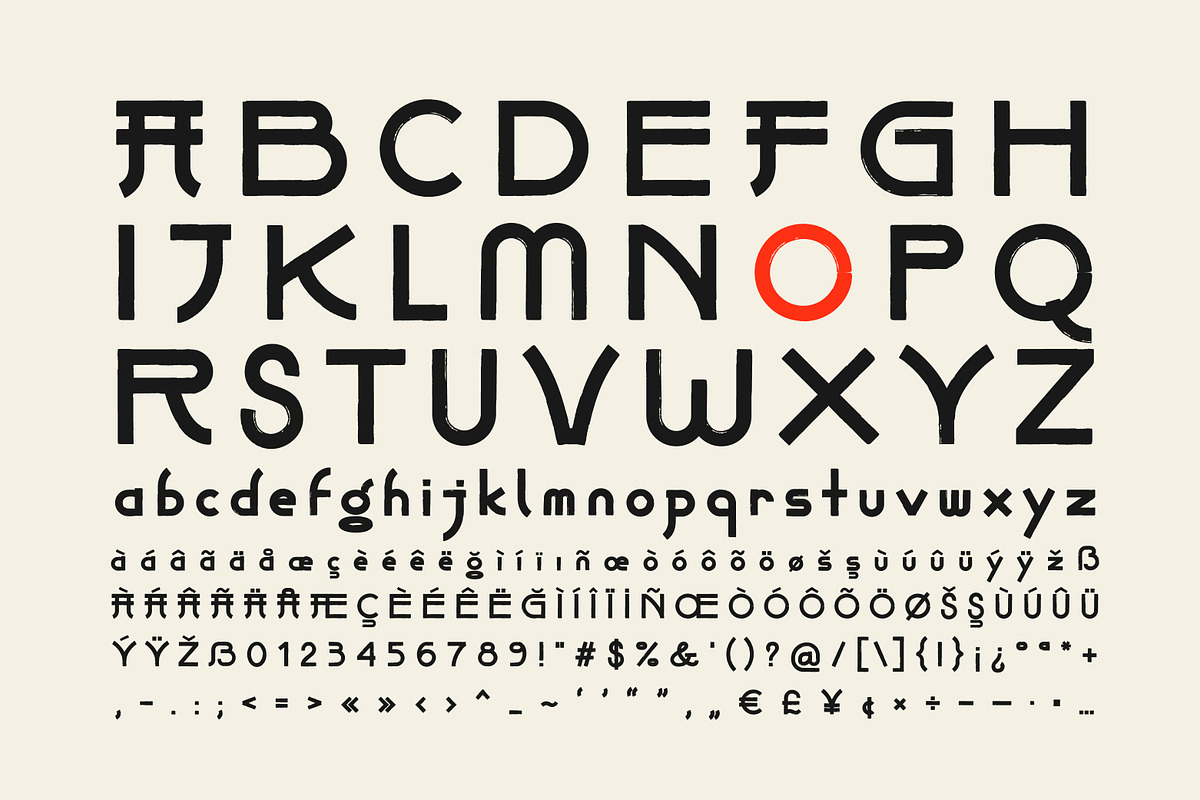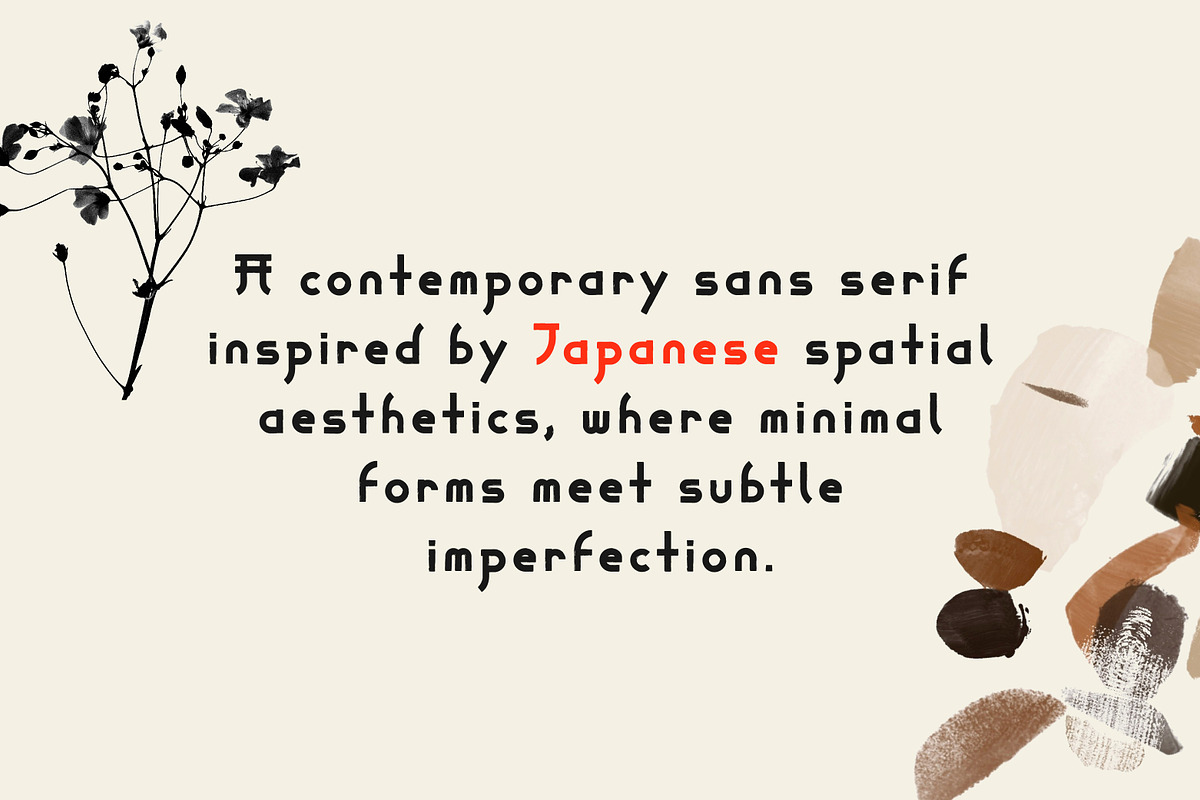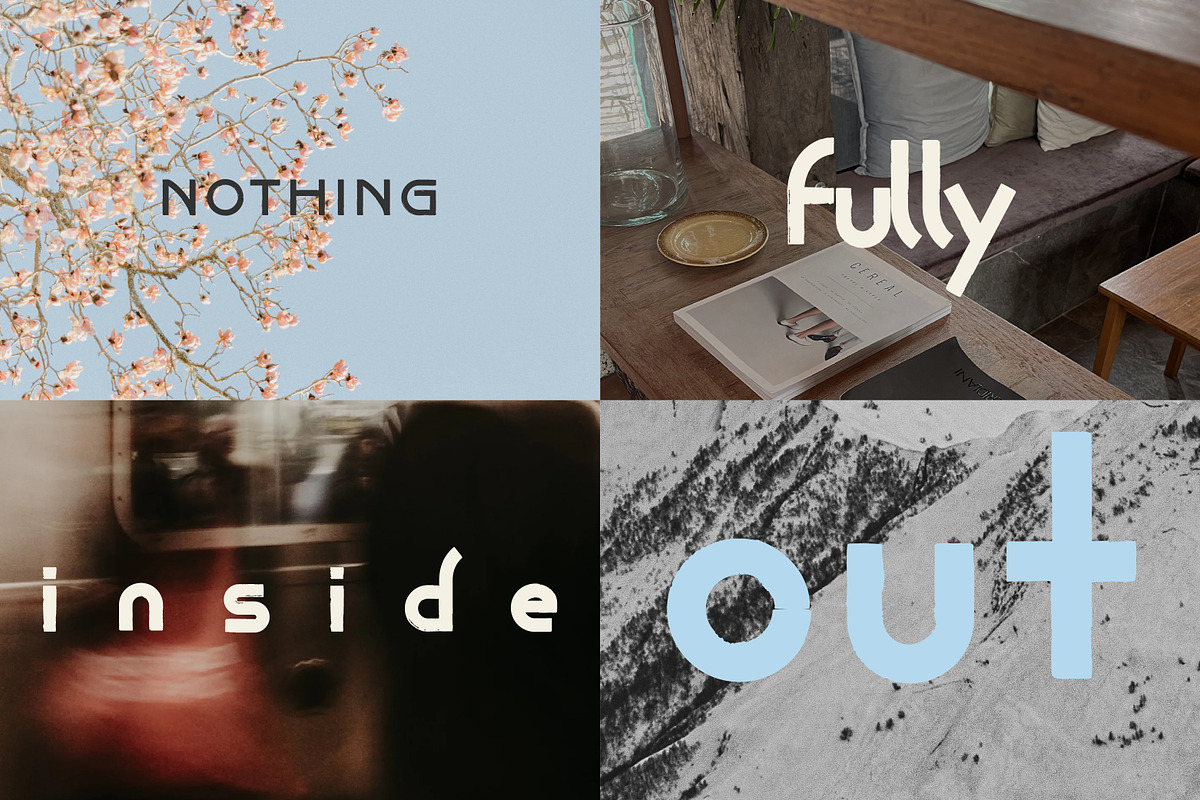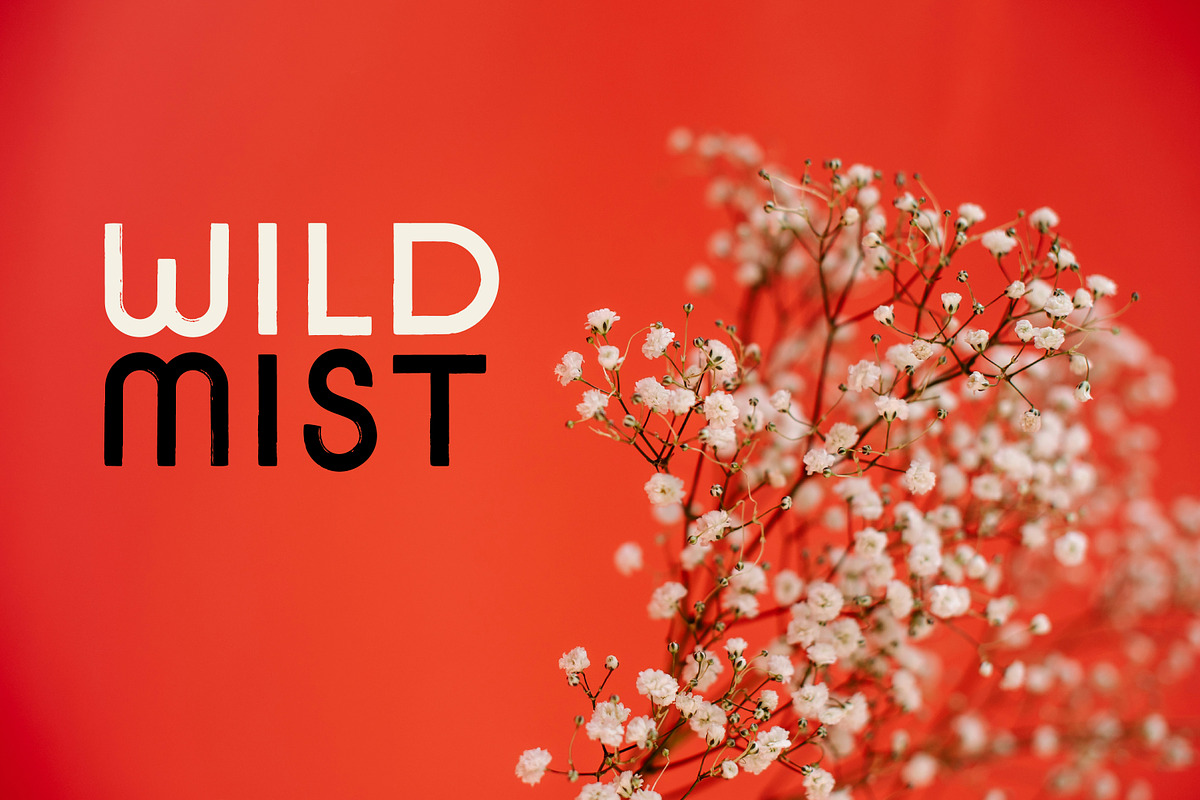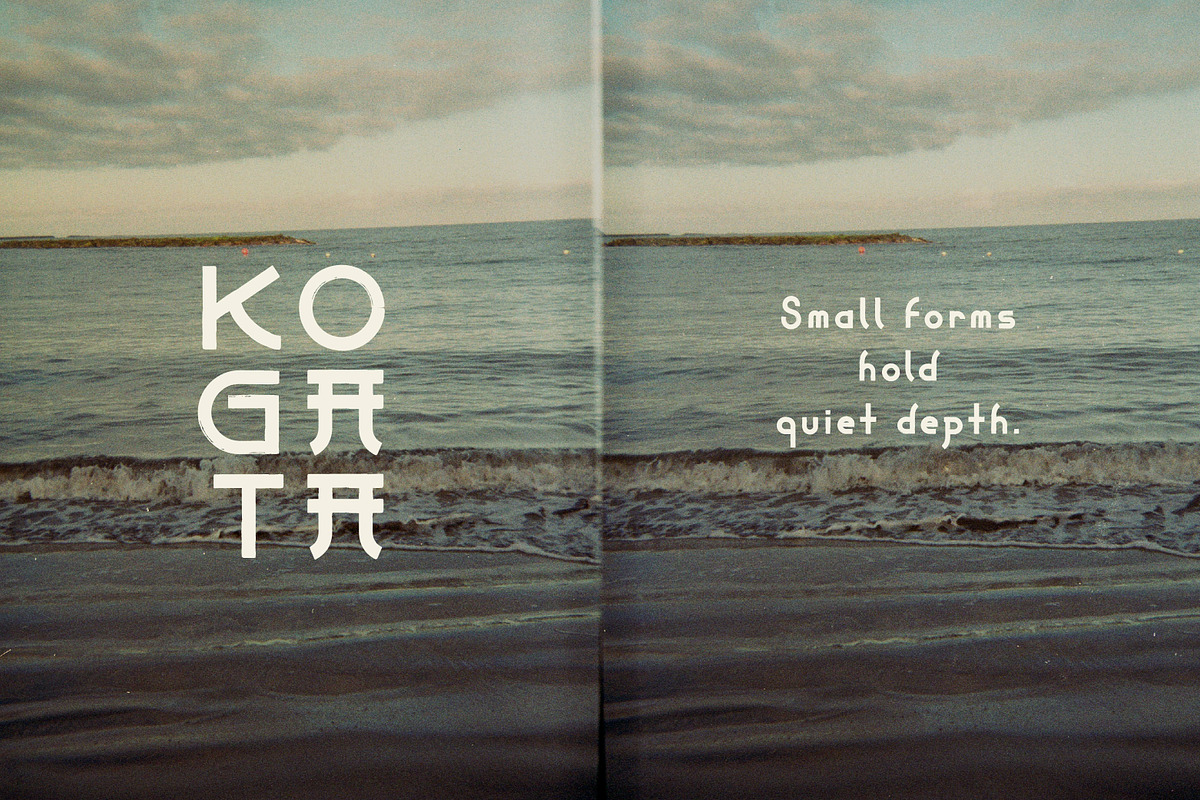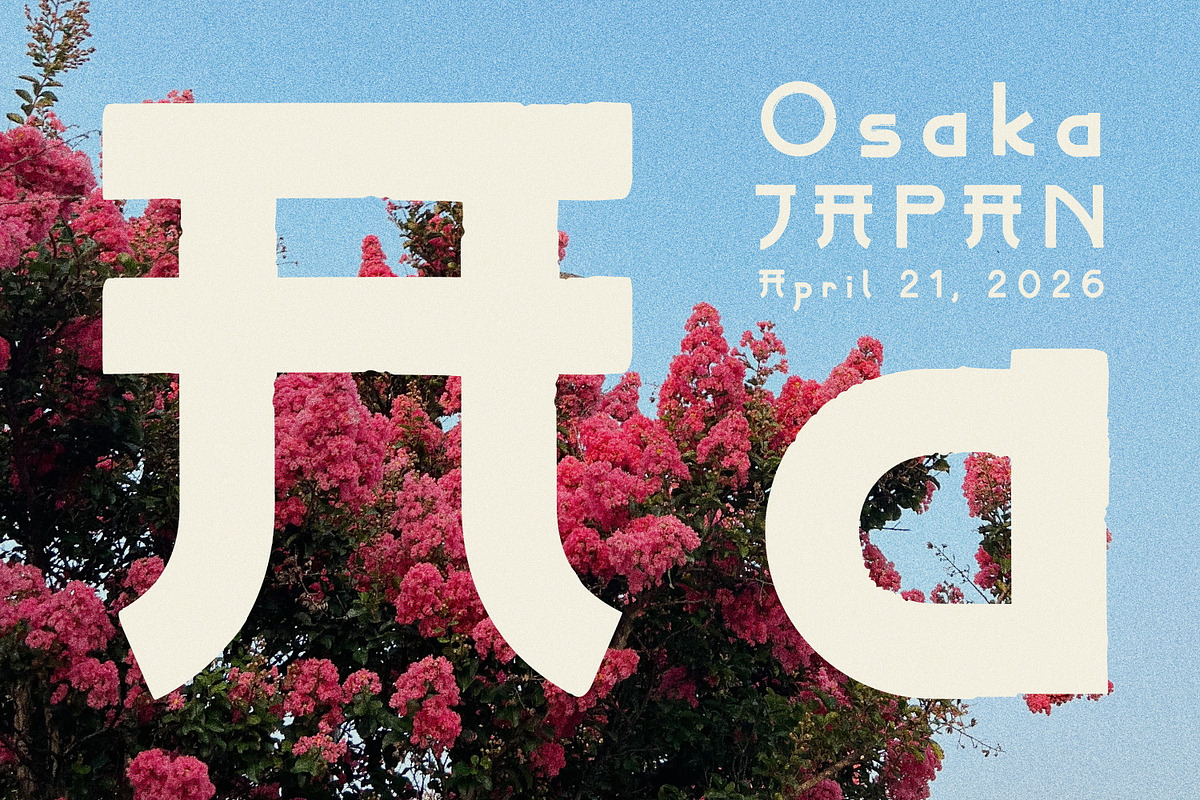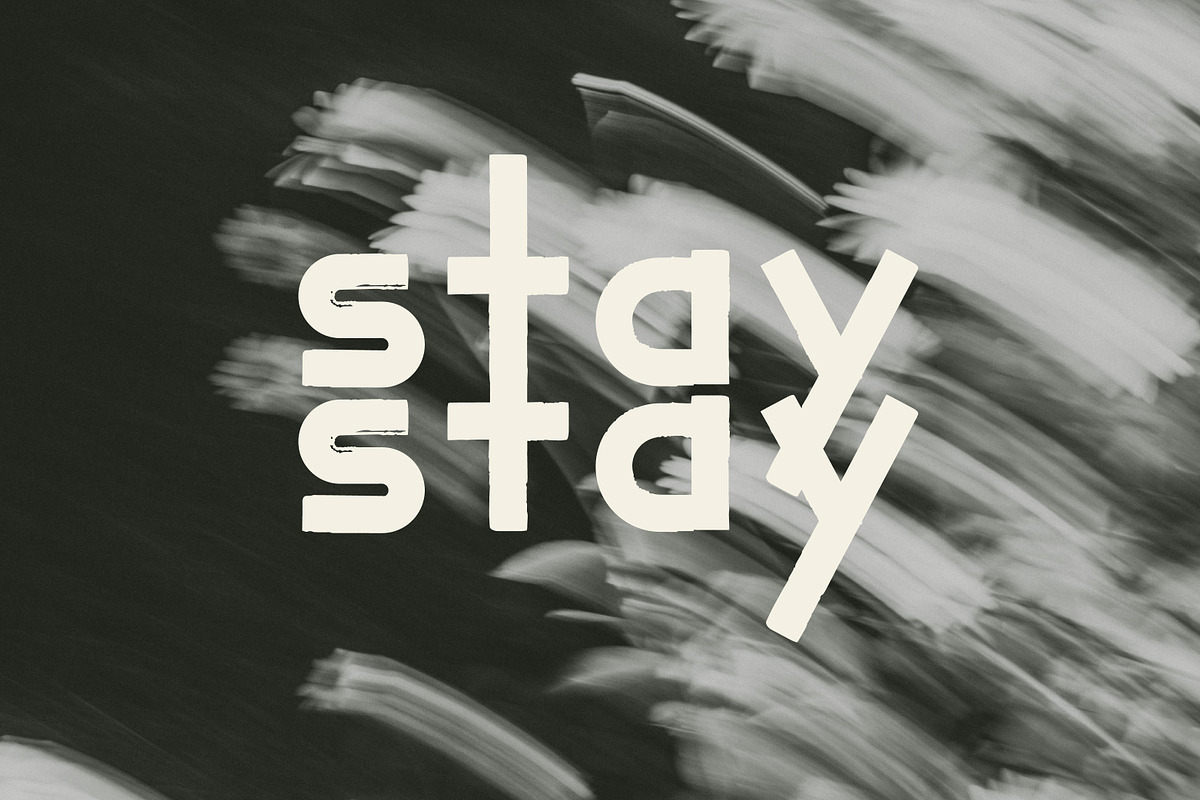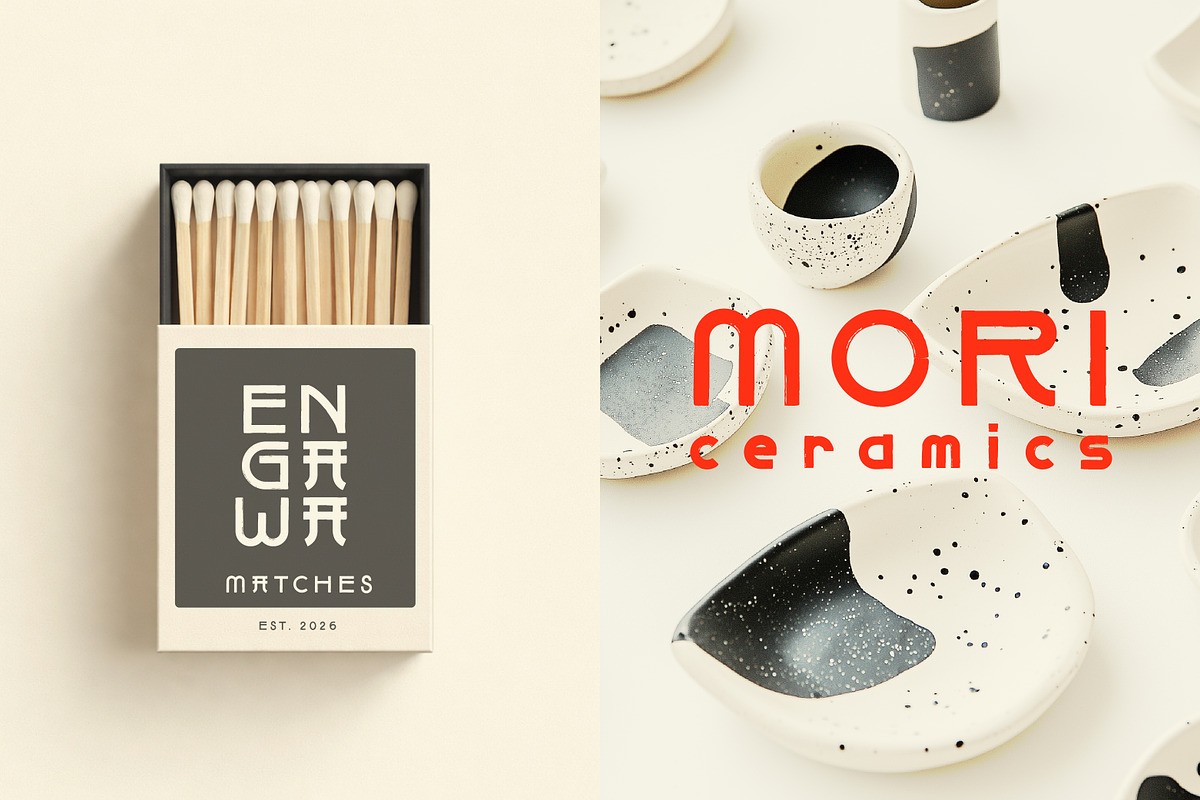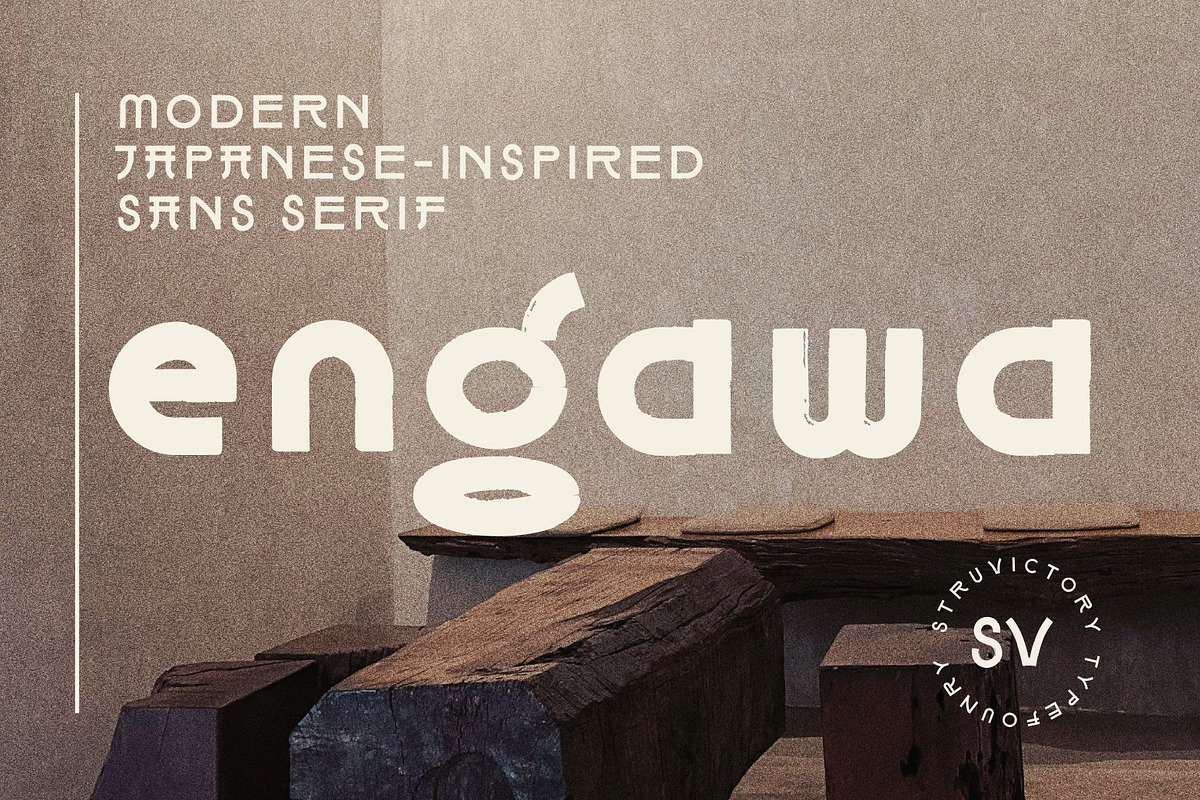
Engawa Japan Inspired Geomeric Sans
Engawa font is a Japan-inspired sans serif that blends geometric clarity with subtle human irregularity. Built on clean, structured forms, it introduces soft distortions and asymmetrical details that echo traditional Japanese aesthetics in a modern, minimal way. The letterforms feature balanced proportions, slightly unconventional cuts, and distinctive shapes that make it stand out in branding, editorial, and packaging design. It works especially well in calm, visual compositions where typography carries both structure and atmosphere.